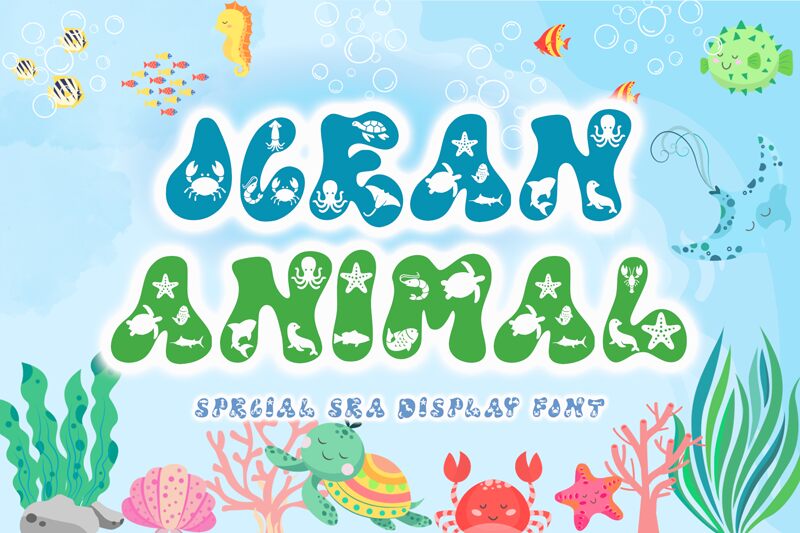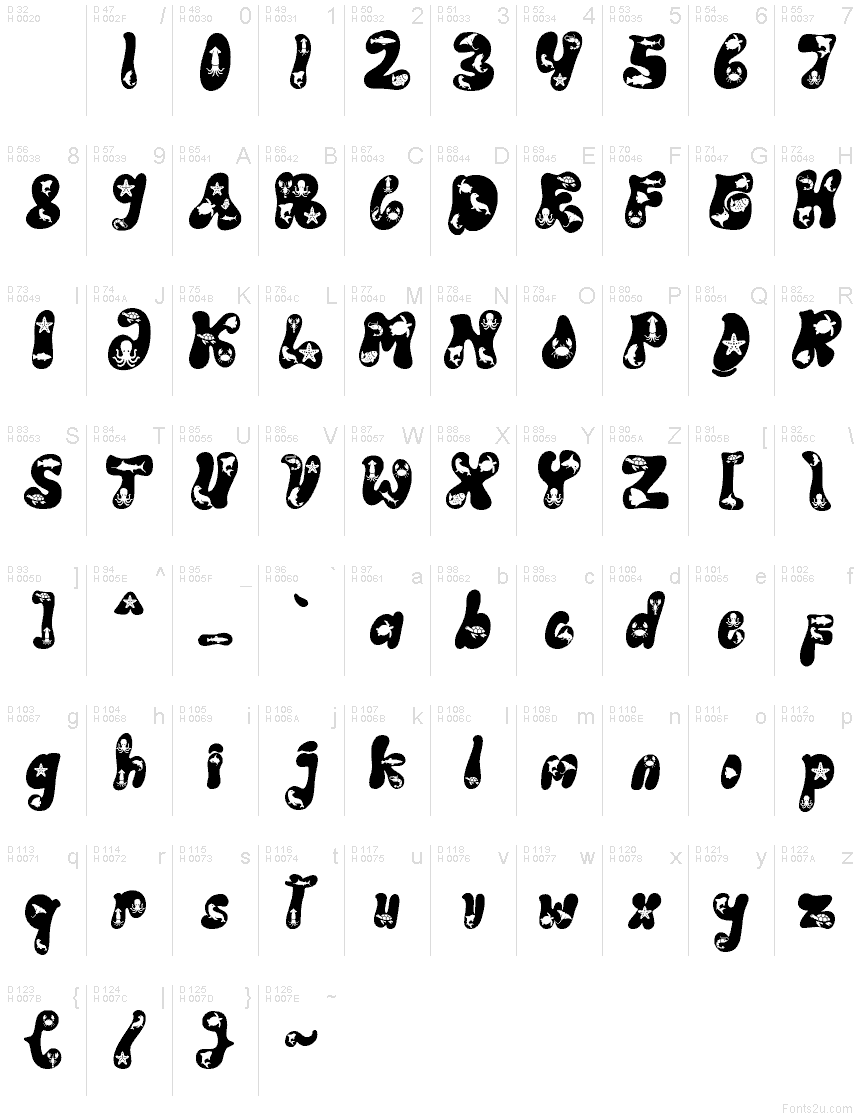
Ocean Animal
Ocean Animal font by Yoga Letter is a free decorative display typeface. Each letter swells like a tide pool, with inky, rounded forms punched by tiny sea creatures—crabs, shells, starfish—that flicker like highlights. The rhythm feels bubbly and upbeat, so headlines pop without getting messy, even when colors or textures enter the mix.
Using Ocean Animal, playful themes snap into focus: kids’ book covers, beach party flyers, aquarium posters, summer camp badges, classroom décor, and toy packaging. This free font shines at large sizes with a bit of extra tracking, letting those cutout details breathe. Pair with a clean rounded sans for captions to keep the splashy energy readable.